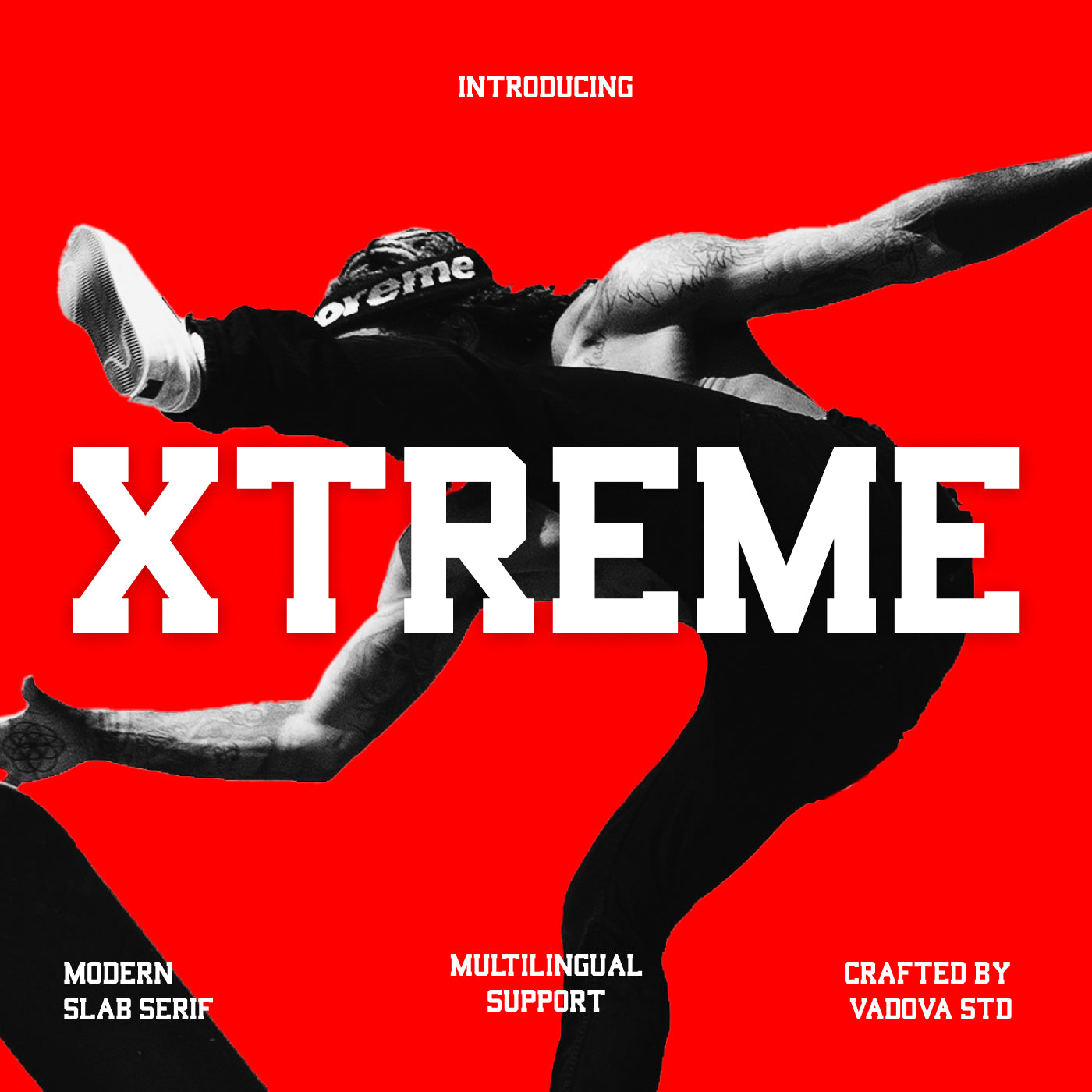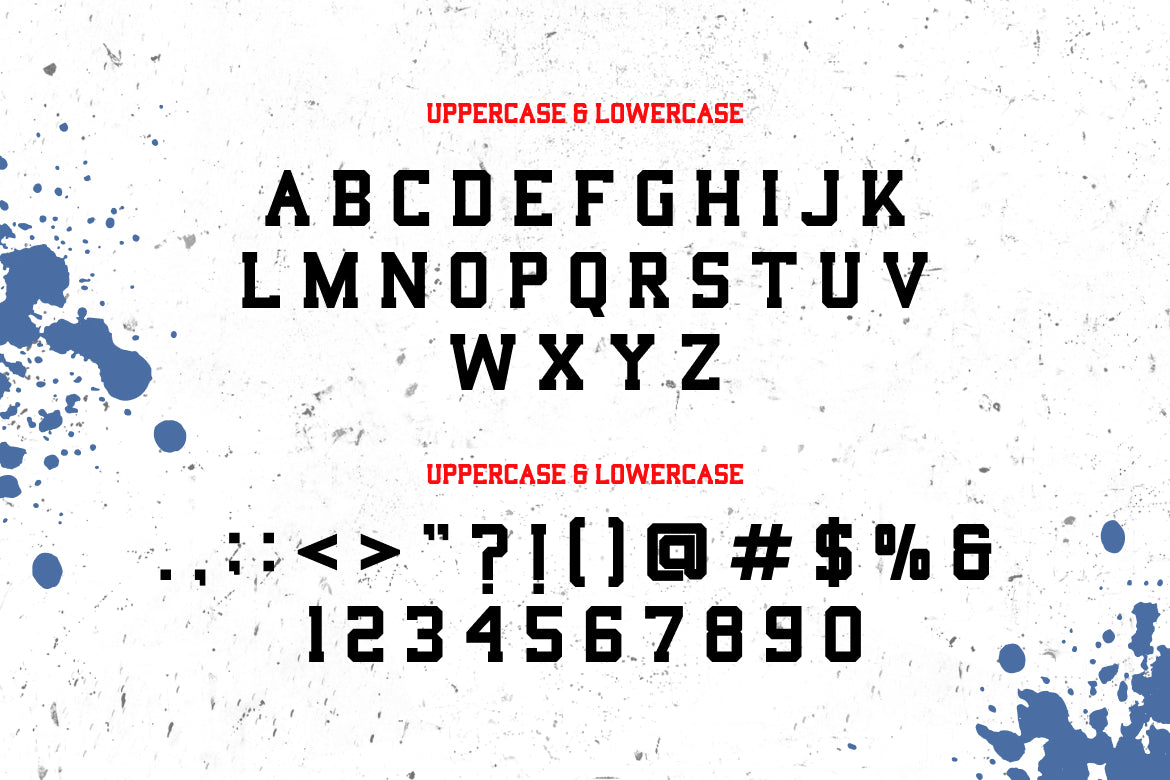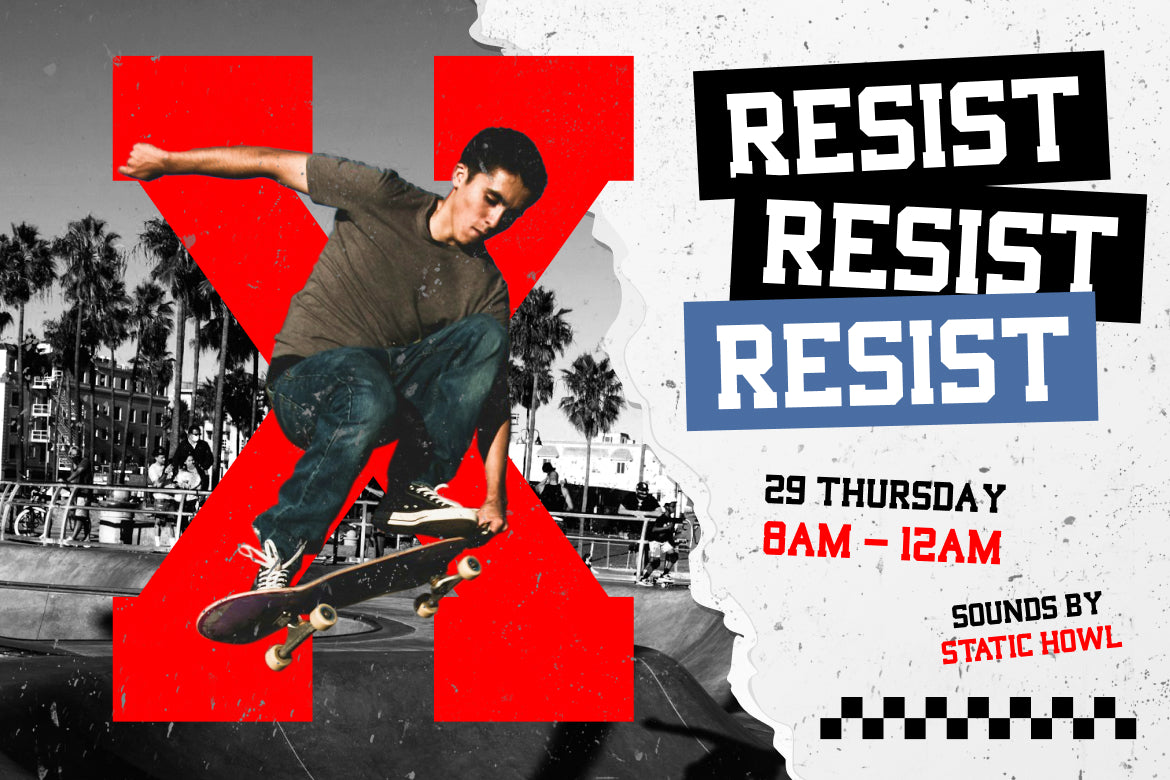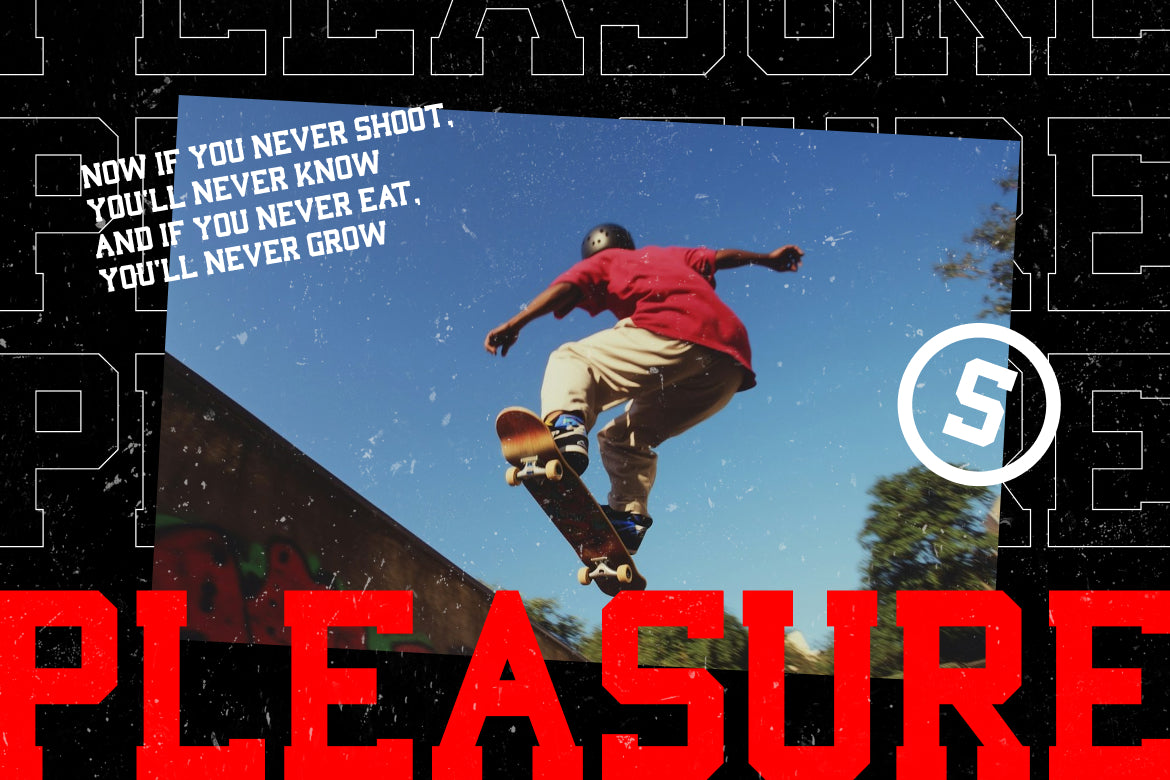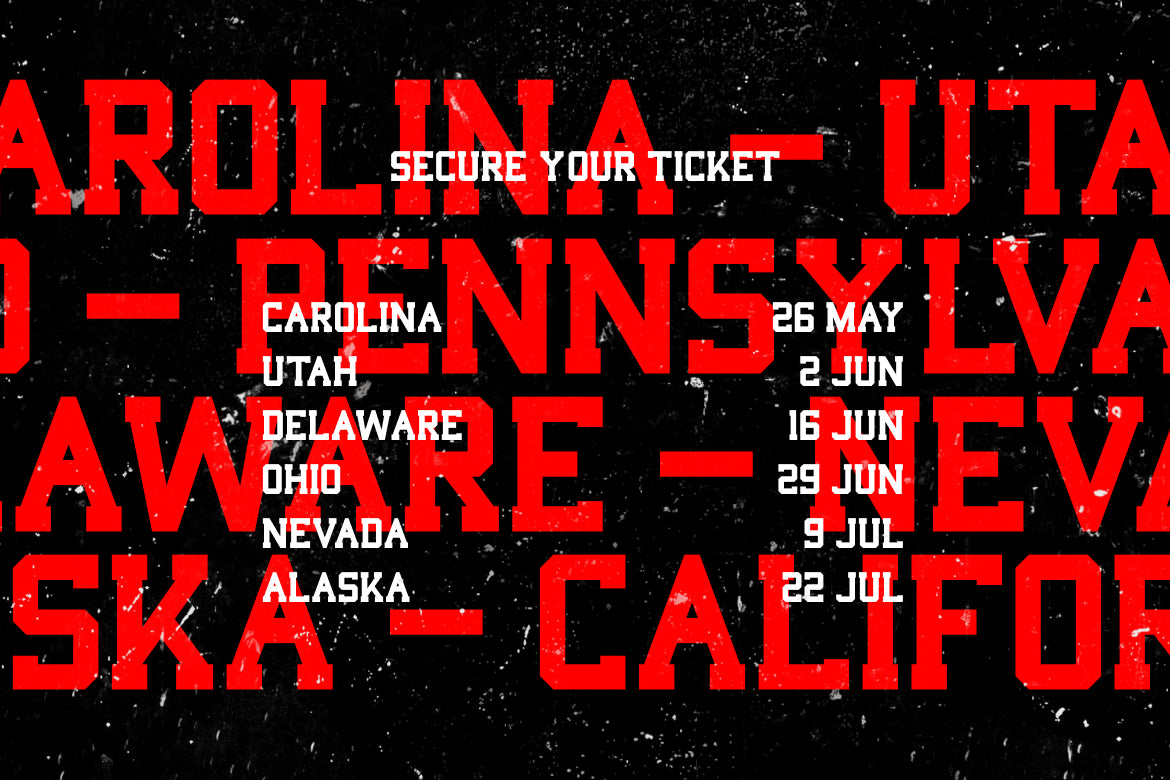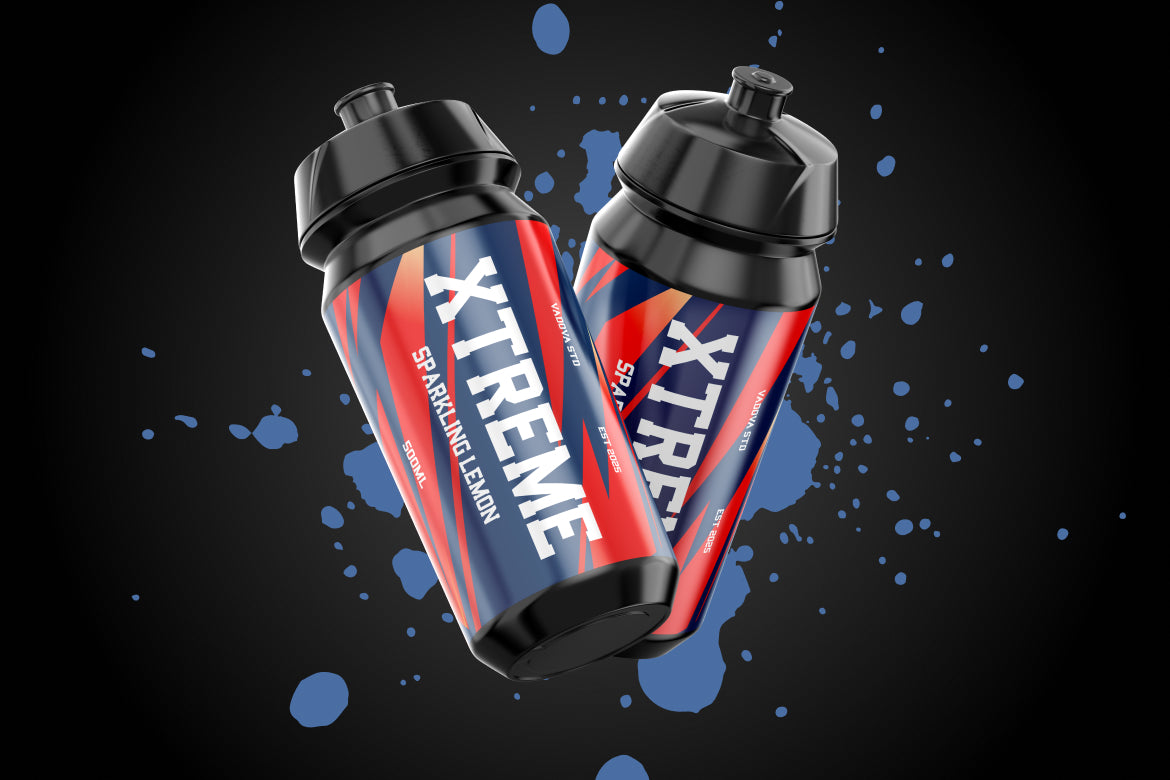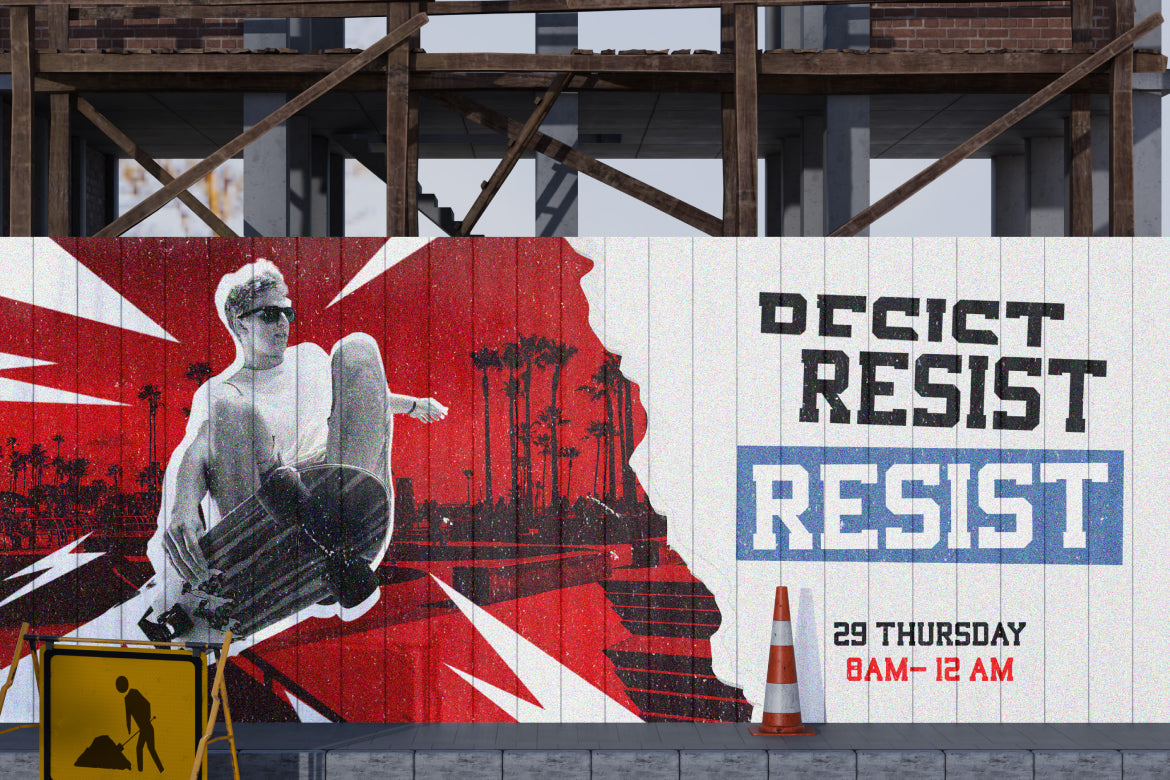
Xtreme Modern Slab Serif Font
Xtreme is a dynamic slab serif font with a retro edge and condensed proportions, perfect for high-impact sports, and youth culture visuals. With strong letterforms and rugged appeal, it brings attitude and intensity to posters, banners, and skate or action sports graphics. Whether you're designing for extreme events or urban campaigns, Xtreme delivers bold presence and energetic character in every application.
Xtreme is a condensed slab serif font with retro-inspired letterforms, available in OTF format with uppercase and lowercase characters, numerals, and punctuation.